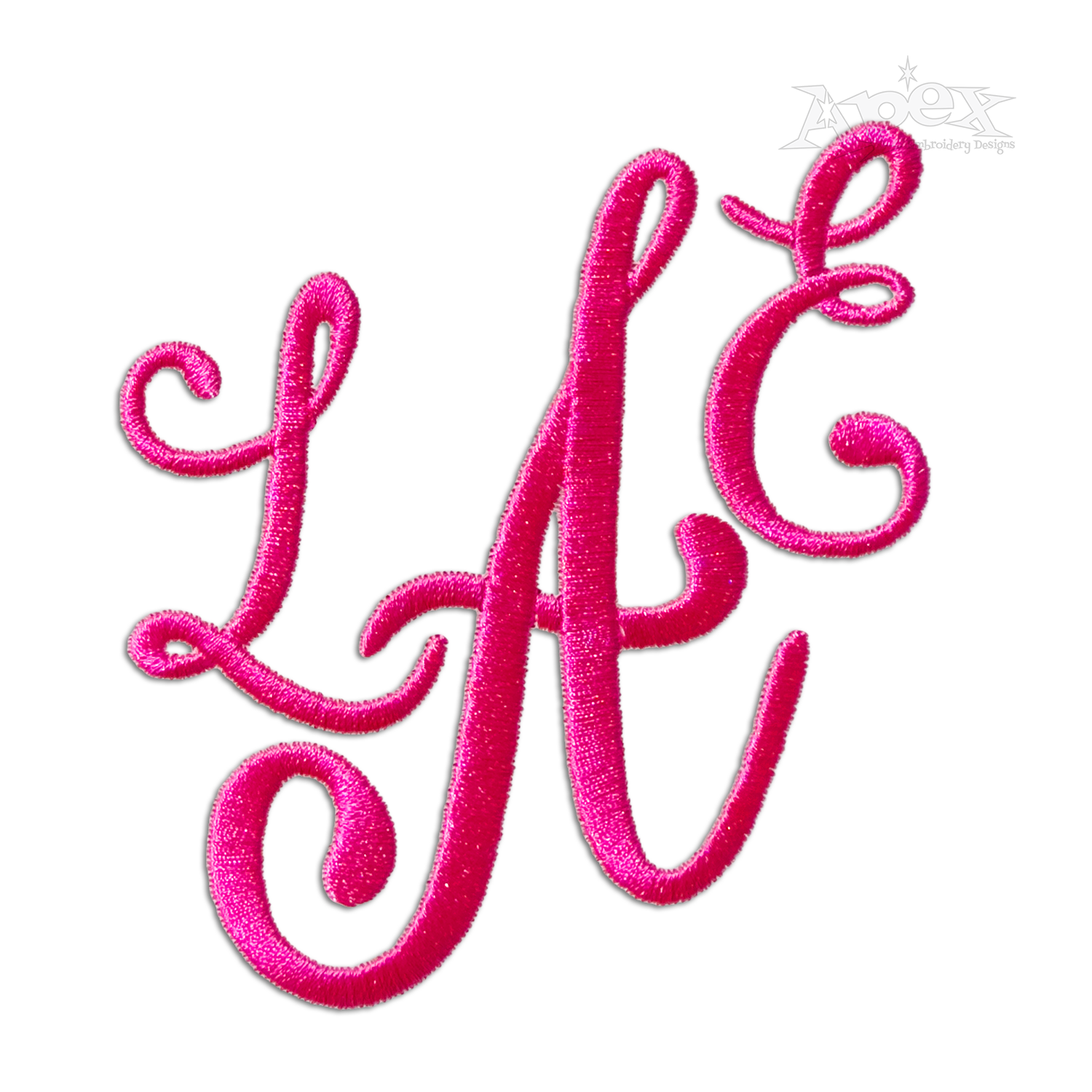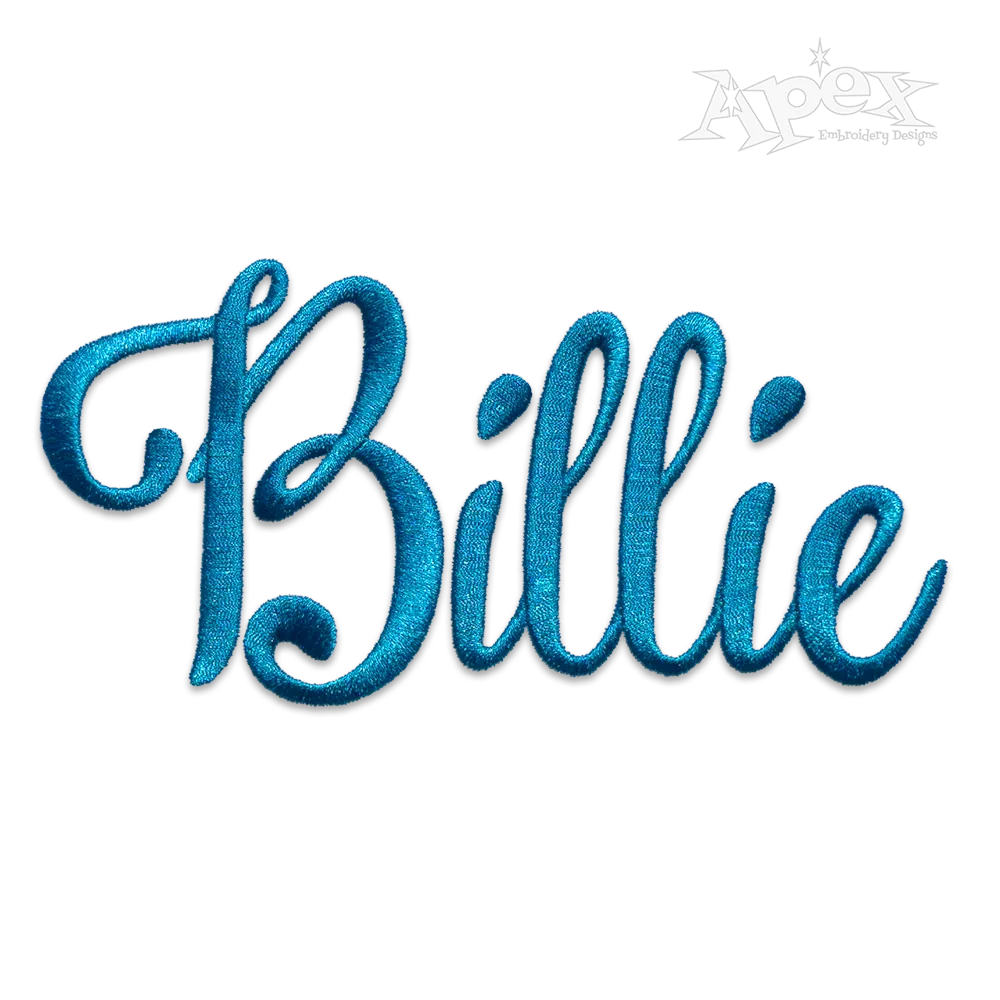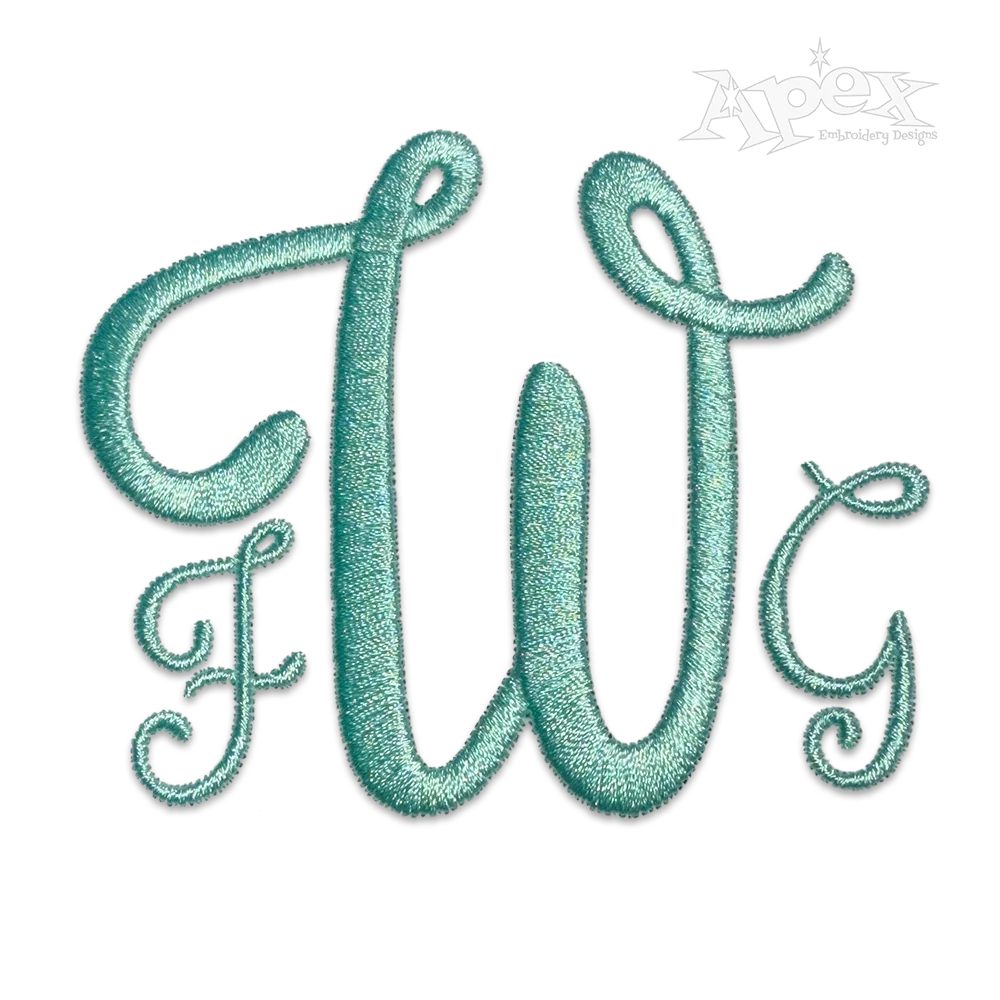
Charm Script Embroidery Font
When designing the Charm Script embroidery font at Apex, we envisioned the effortless grace of vintage copperplate penmanship meeting the lustrous, high-thread-count finish of modern needlework. Every sweeping ascend and playful loop carries an air of refined romance, reminiscent of handwritten love notes, sunlit garden weddings, and timeless bespoke keepsakes. We sculpted each character to bridge the delicate gap between free-flowing organic calligraphy and impeccably balanced machine embroidery, producing a satin stitch alphabet that cascades across fine fabrics with natural rhythm and radiant poise.
Project Ideas for Charm Script
The timeless movement and poised elegance of Charm Script make it an indispensable favorite for personalized gifting and heirloom embroidery collections:
- Luxury Table Linens: Embroider classic single-letter monograms or family crests onto hemstitched linen cocktail napkins and runner ends for exquisite dining tablescapes.
- Bridal & Resort Wear: Adorn silk bridal robes, honeymoon sun hats, and bespoke resort wear button-downs with graceful, interconnected scripts.
- Heirloom Bedding & Nursery Accents: Stitch heartfelt names or dates onto crisp percale pillowcases, baby swaddle blankets, and heirloom christening gowns.
- Personalized Canvas Totes & Travel Bags: Turn everyday canvas bags, velvet cosmetic pouches, and spa wraps into cherished, tailored gifts.
Strategically placing Charm Script elevates the movement and aesthetic balance of the entire embroidered piece:
- Corner Diagonal: Angle a 1-inch or 2-inch monogram at 45 degrees across the corner hem of dinner napkins, pocket squares, or vintage handkerchiefs, letting the tail flourishes complement the fabric edge.
- Cuff & Hemline Details: Position the 1-inch size along shirt cuffs, collar points, or dress hems for an understated mark of custom tailoring.
- Center Chest Placement: On bridal loungewear, cozy sweatshirts, or bathrobes, center a full name or traditional monogram horizontally across the left chest or high center neckline.
- Pillow Centers & Framing: Showcase the 3-inch capital initials centered on lumbar pillows or framed within laurel wreaths for a striking decor centerpiece.
Charm Script Craft & Letterform Details
True cursive embroidery demands far more than tracing vector outlines with standard satin fills. For Charm Script, our master digitizers manually mapped the stitch angles throughout every swash, loop, and crossbar to faithfully reflect the variable downstrokes and delicate hairlines of a dipped ink pen. This deliberate directional stitching allows thread to catch and reflect light continuously, producing a rich, liquid satin sheen.
Each letterform is reinforced with custom underlay tailored to its scale, preventing fabric puckering and thread sinking even on soft, textured textiles. The entry and exit points of each glyph are carefully harmonized, yielding clean ligatures that flow together with seamless fluidity and minimal jump stitches for an immaculate, heirloom-grade finish.